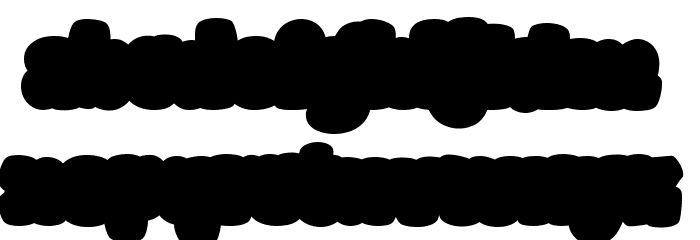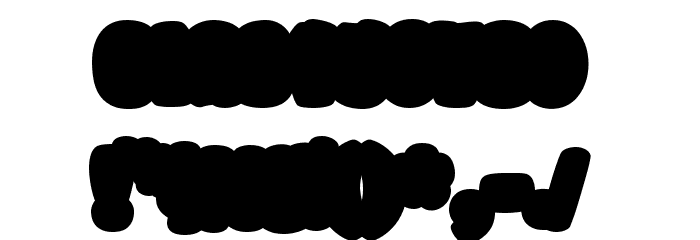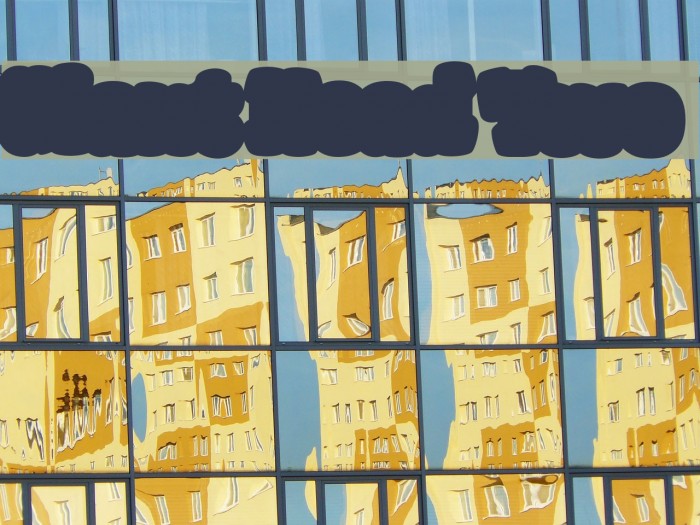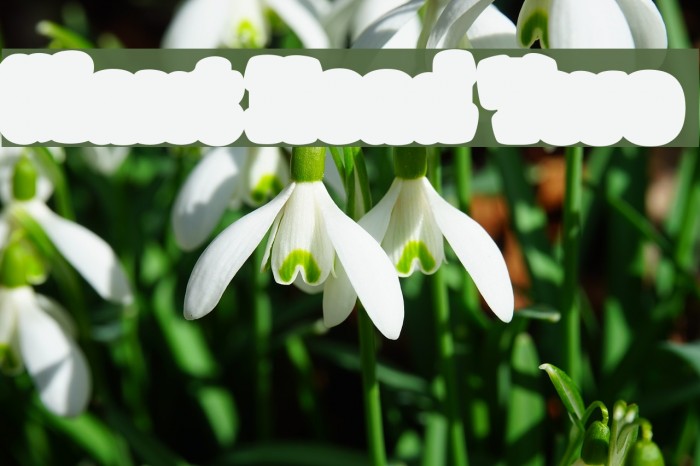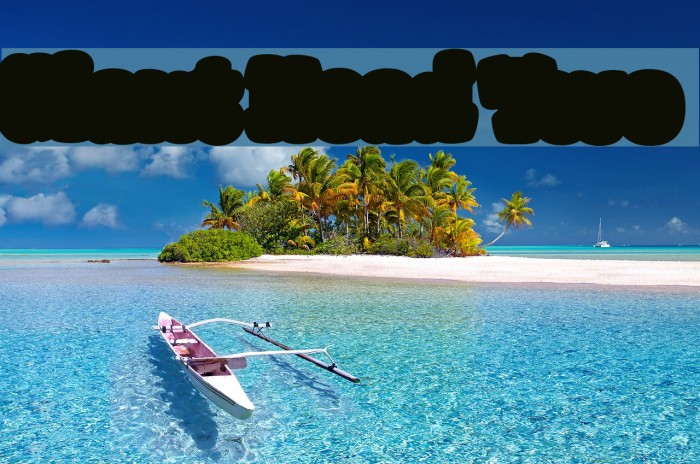
Giant Head Two Font
This font is characterized by its bold, playful, and highly decorative style. The letters are thick and rounded, giving them a cartoonish and whimsical appearance. The strokes are uniform in thickness, contributing to a cohesive and solid look. The characters are closely spaced, creating a compact and dense visual effect. This font is designed to grab attention and convey a sense of fun and creativity. Its exaggerated forms and bold presence make it ideal for projects that require a strong visual impact.
A bold, playful, and decorative font with thick, rounded letters.
- Proposed Projects: Ideal for children's book covers, playful branding, posters, and any design needing a fun and bold statement.
- Character Spacing: Tight